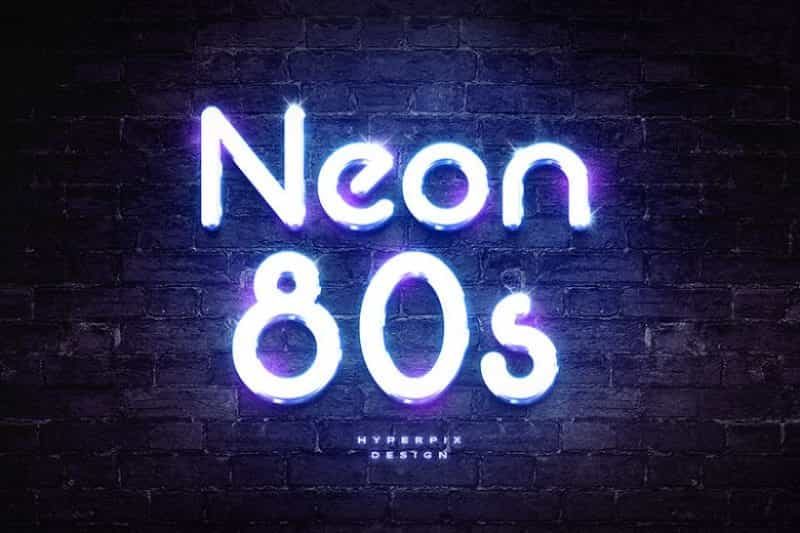
Essque Productions’ Neon80s Sans Serif Font is an elegant, futuristic font inspired by real-world neon light signals. This minimalist font boasts perfectly rounded corners to emulate its namesake tube-based counterpart, using open ends and start points as seen on authentic neon tubes. This font is great for creating custom lights or designing actual neon signs in the real world.